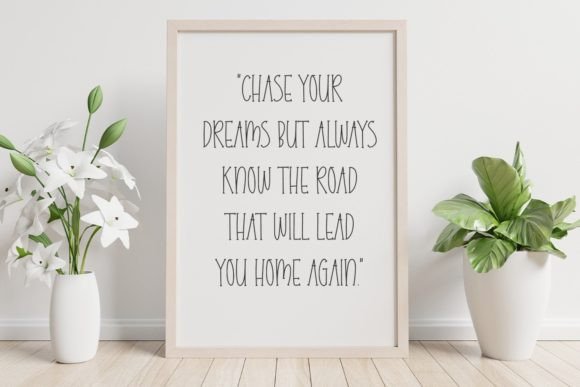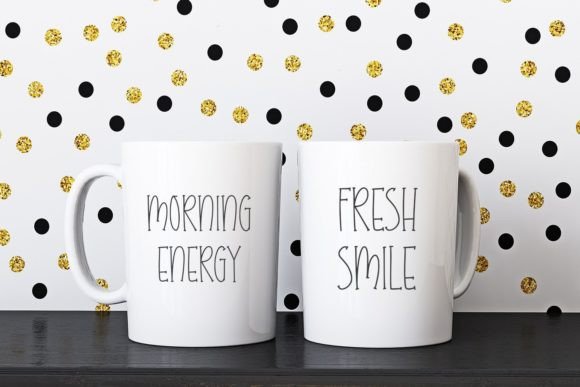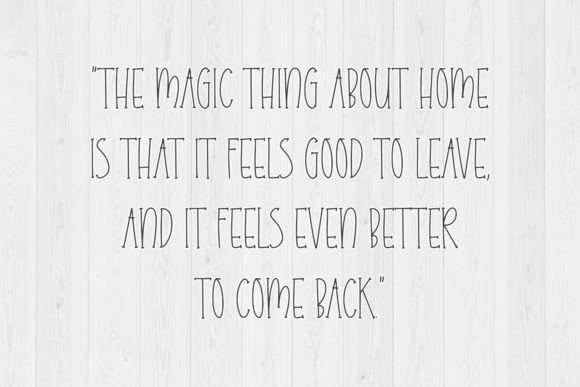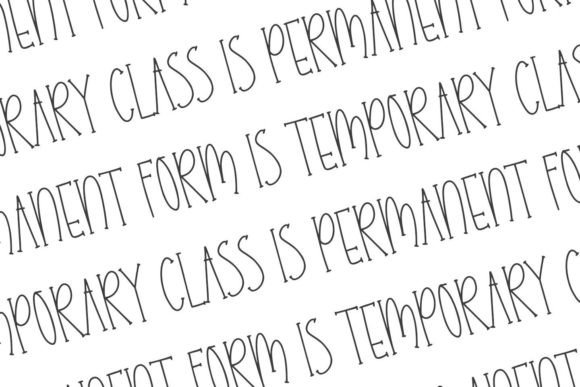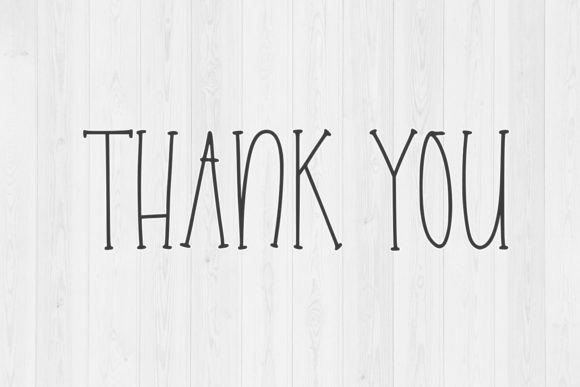
Introduction to Homestone Font
As you sit at your desk, staring at a blank canvas, your creative mind starts to wander. You’ve got a brilliant idea for a new project, but it’s just missing that perfect touch. That’s when you remember the secret ingredient to making your design truly shine: a beautiful font. And that’s exactly what you’ll find with the Homestone Font – a playful handwritten serif font that adds a personal touch to any creative project.
For designers, having access to high-quality design resources like Homestone Font is invaluable. Not only can it elevate your work, but it can also save you time and effort in the long run. With a wide range of applications, from T-shirt designs to social media posts, this font is the perfect addition to any design arsenal.
Key Features of Homestone Font
- High-quality font with a unique, natural design that suits various creative projects.
- Designed to be highly legible, with a clear and crisp font style that is perfect for body text.
- Includes a range of glyphs and characters, making it suitable for use in multi-language designs.
- Perfect for use in a variety of creative projects, including print and digital designs, web pages, and social media graphics.
Honest Review: Homestone Font
I recently had the chance to use the Homestone Font in a design project and I’m excited to share my thoughts on this beautiful font.
What works well: ✨ The Homestone Font has a unique, vintage aesthetic that’s perfect for creative projects. The high-quality design is evident in every detail, from the subtle texture to the crisp lines. I especially love the transparent background option, which makes it easy to layer with other design elements.
Some design resources can be a bit tricky to work with, but not the Homestone Font. It’s incredibly easy to customize and pair with other fonts, making it a great addition to any design project.
Overall impression: I’m thoroughly impressed with the Homestone Font. It’s a high-quality design resource that’s perfect for creative projects. With its unique aesthetic and transparent background option, it’s a great choice for designers looking to add some personality to their work.
Pros:
- Unique, vintage aesthetic
- Easy to customize and pair with other fonts